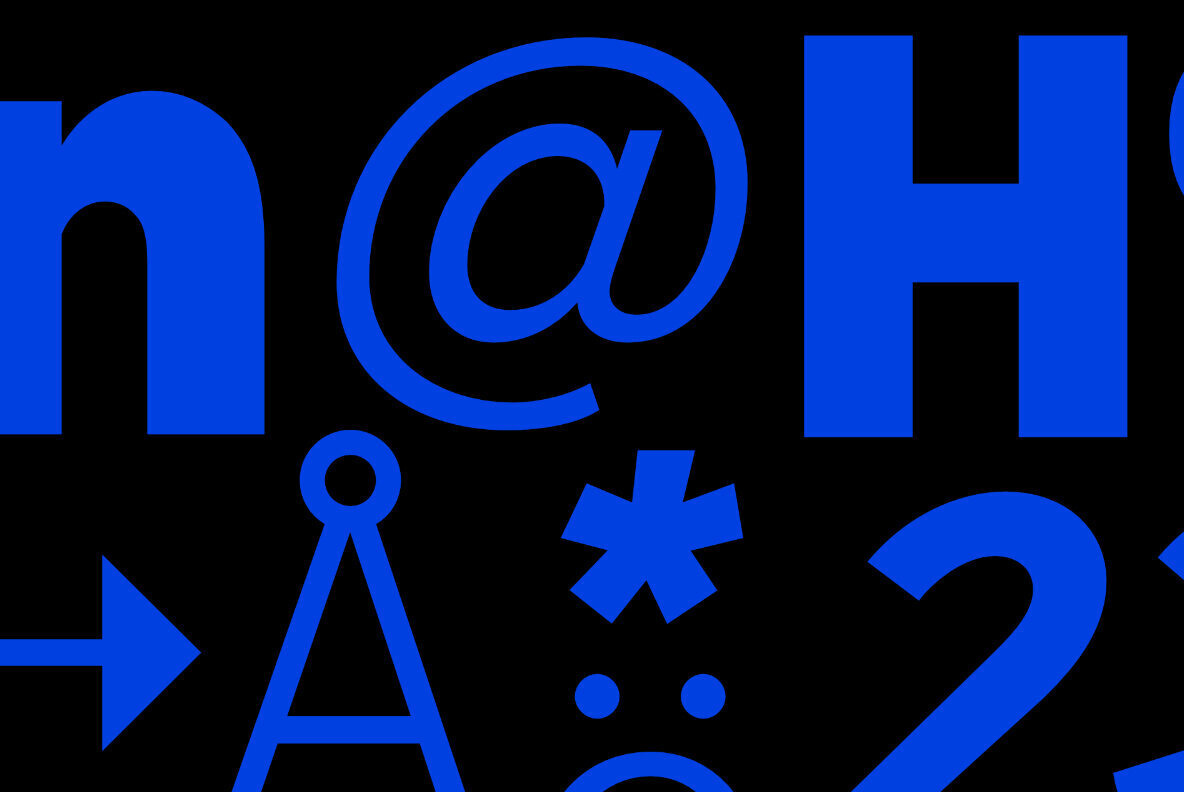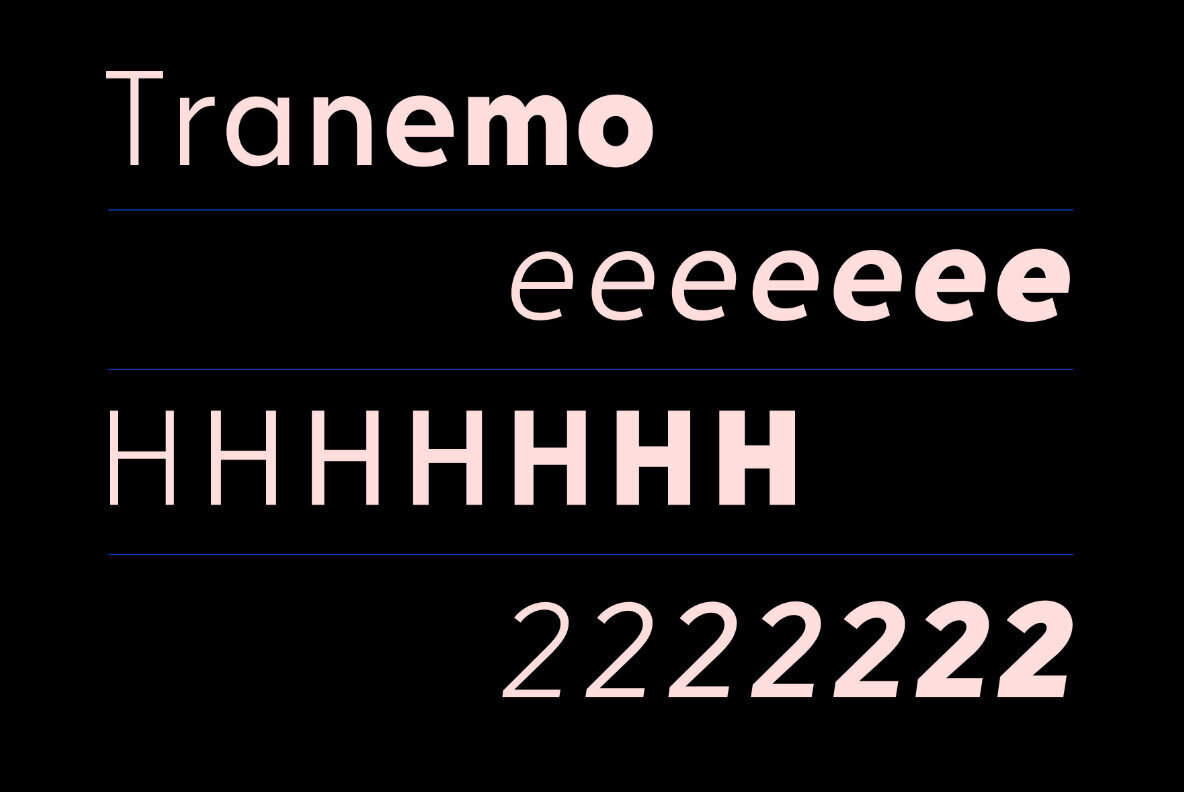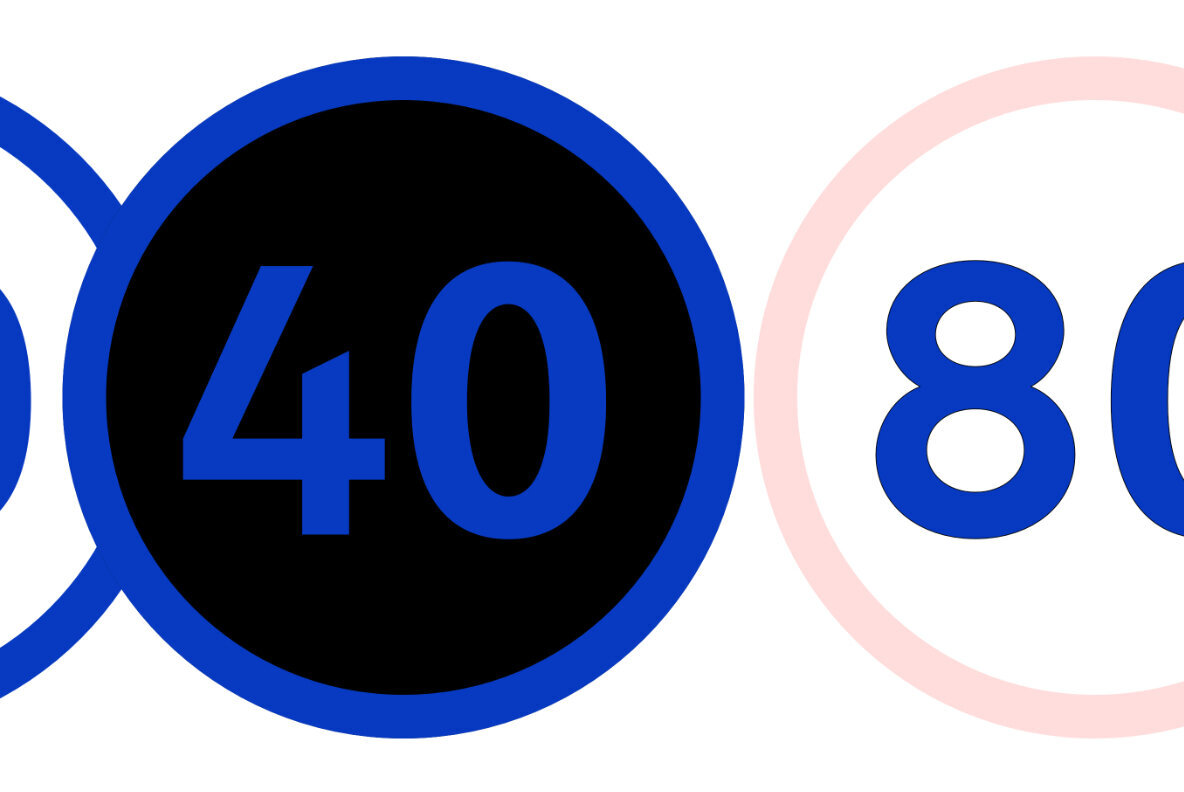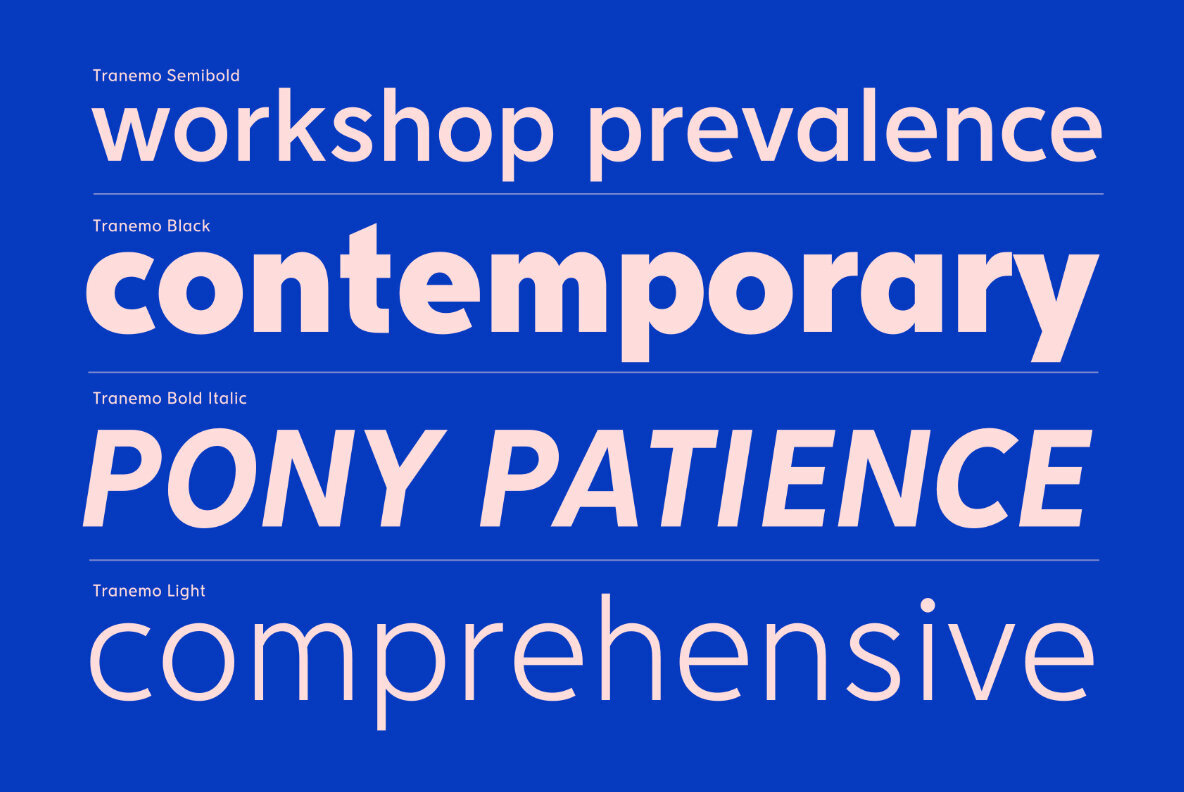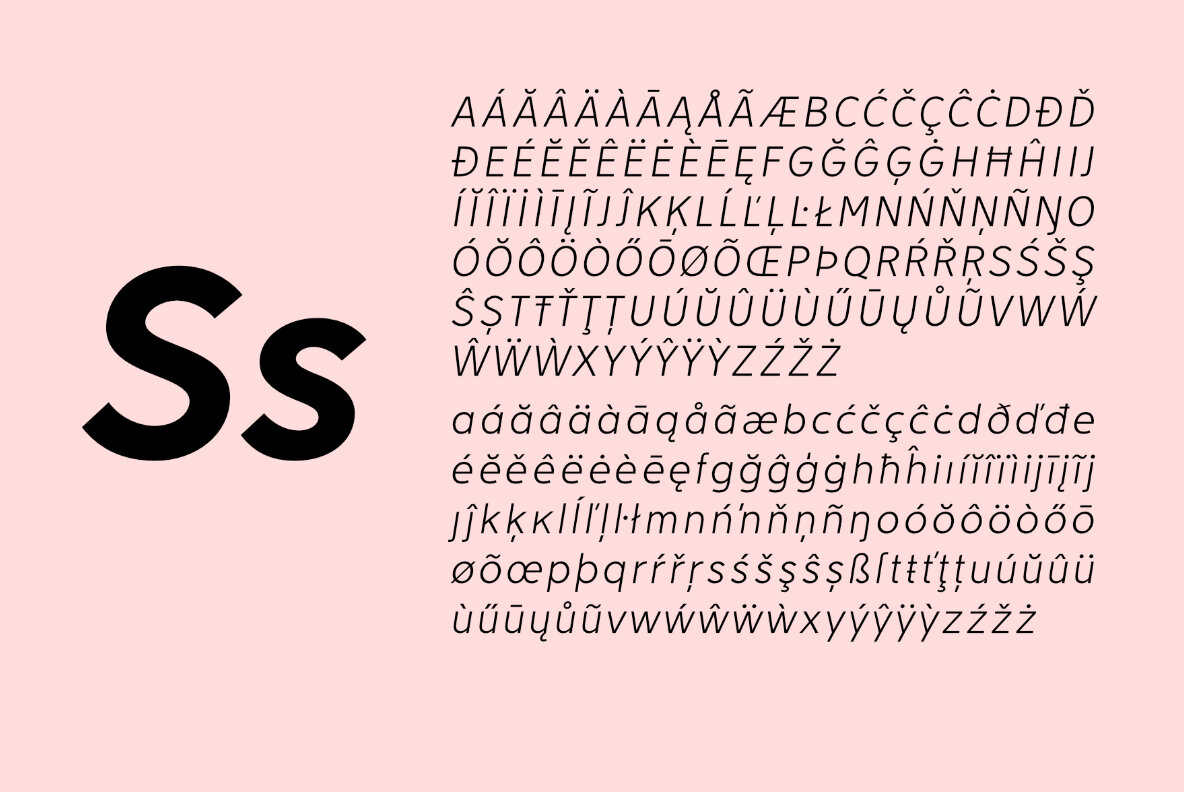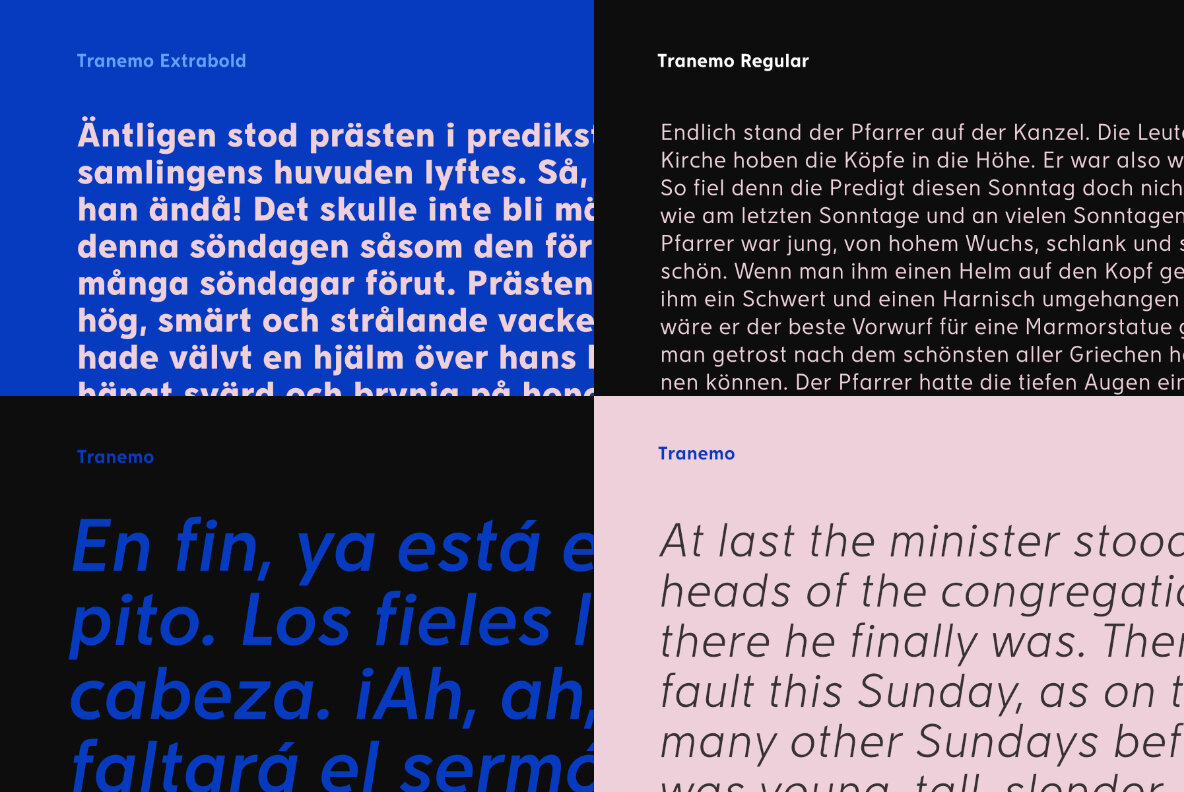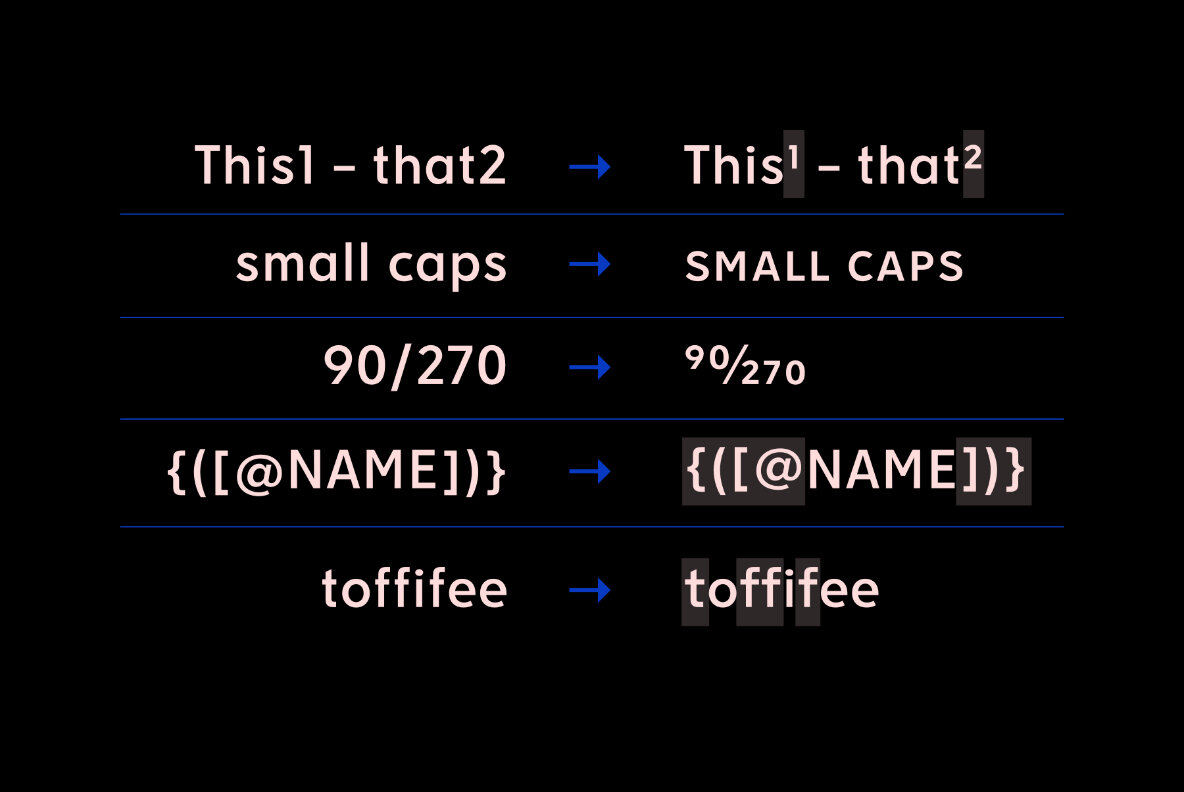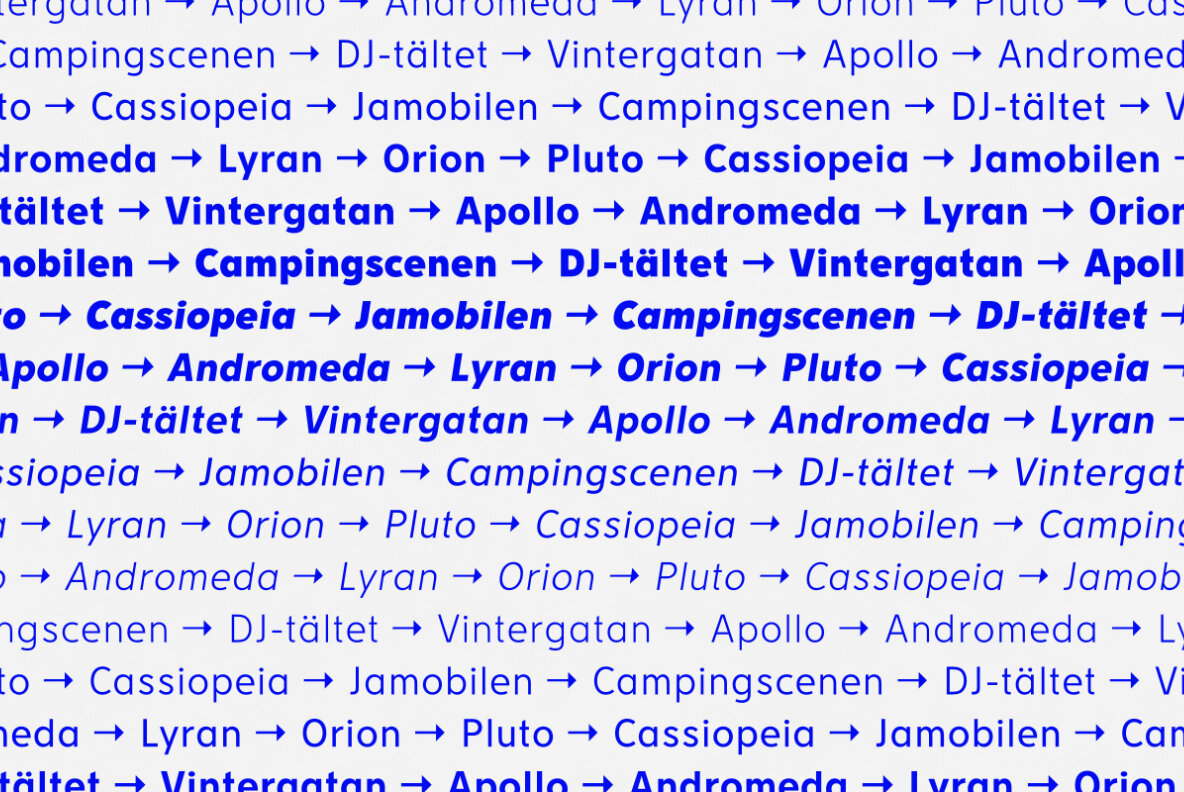
Tranemo Font
Tranemo is a geometric sans-serif. A modern interpretation of the typeface used on road signs in Sweden. For Swedish people, Tranemo brings to mind an authoritarian and credible – but friendly – voice.
It’s designed in line with what’s expected from a modern typeface, including optimised for screen.
Tranemo is suited for long text use with it’s generous letter spacing. A good fit for identity work and display settings. Performing well both on screen and in print, making it perfect for the next-door startup.